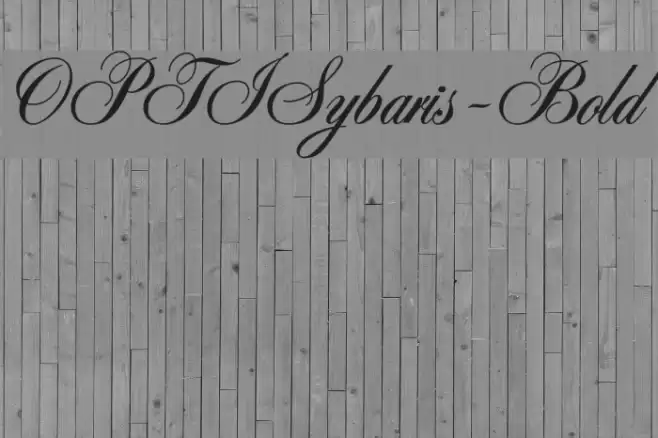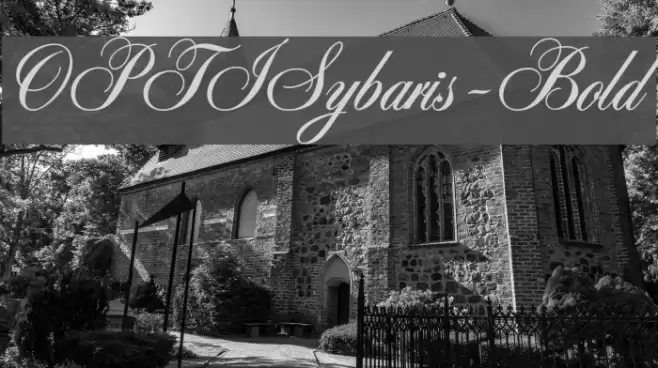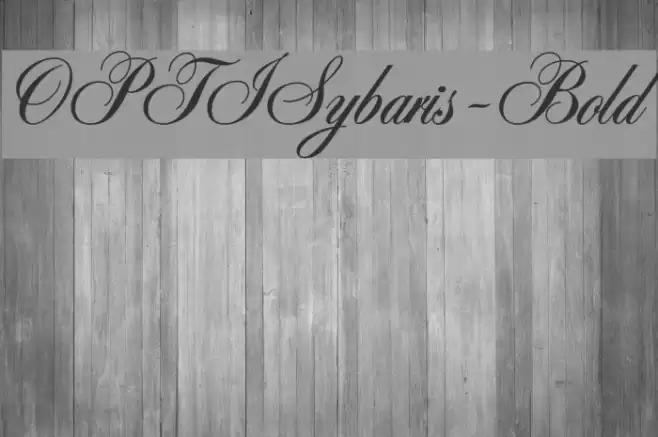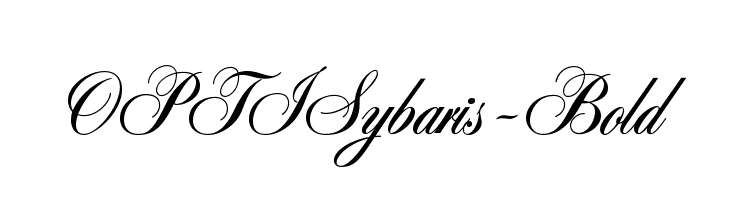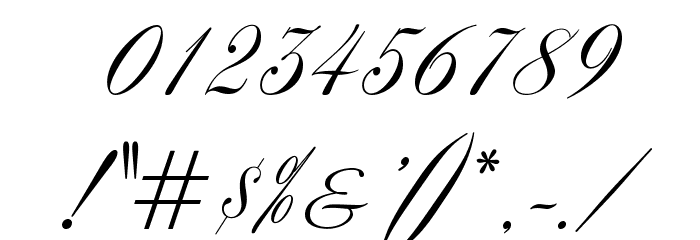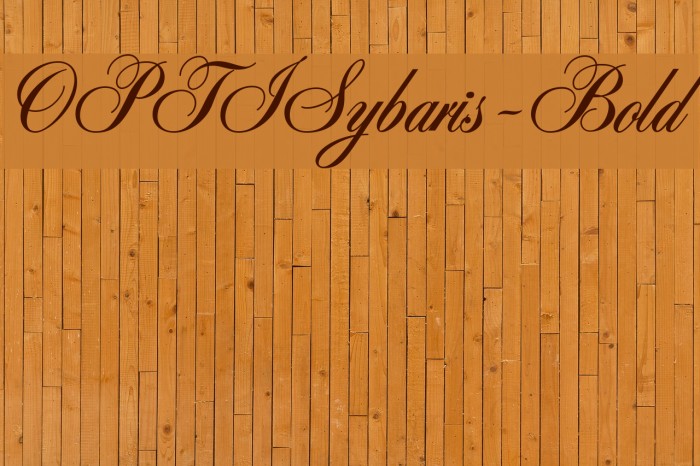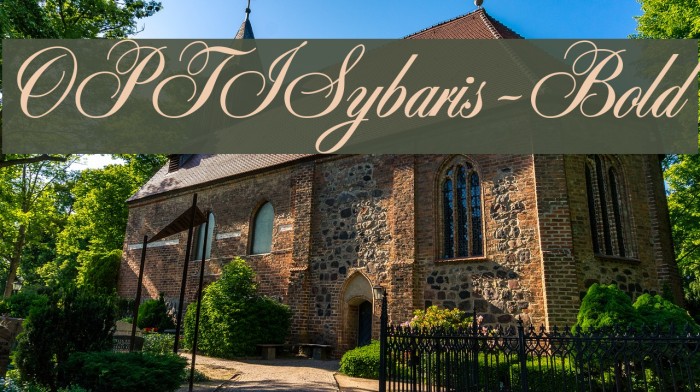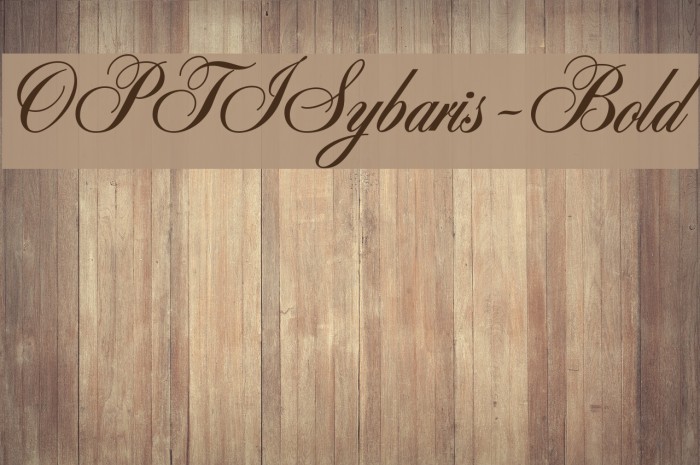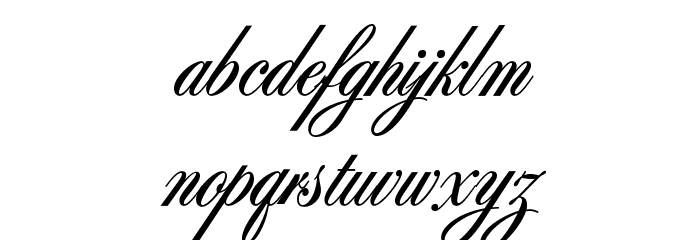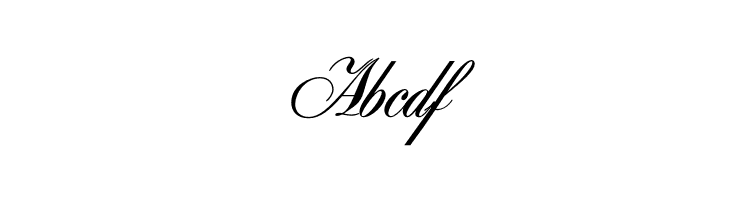
OPTISybaris-Bold Font
OPTISybaris-Bold Description
This elegant script font features a sophisticated and flowing design, characterized by its smooth, cursive strokes and intricate flourishes. The uppercase letters are particularly ornate, with loops and swirls that add a touch of luxury and refinement. The lowercase letters maintain a consistent style, with a graceful slant that enhances readability while preserving the decorative nature of the font. The numerals and special characters are designed to complement the overall aesthetic, ensuring a cohesive appearance across all text. This font exudes a sense of elegance and formality, making it ideal for upscale and stylish applications.
An elegant script font with flowing, cursive strokes and intricate flourishes from Uncategorized fonts.
- Proposed Projects: Ideal for wedding invitations, luxury branding, elegant signage, and formal event programs.
- Overall Style: Elegant, Formal, Decorative
- Use Case: Headlines, Invitations, Branding